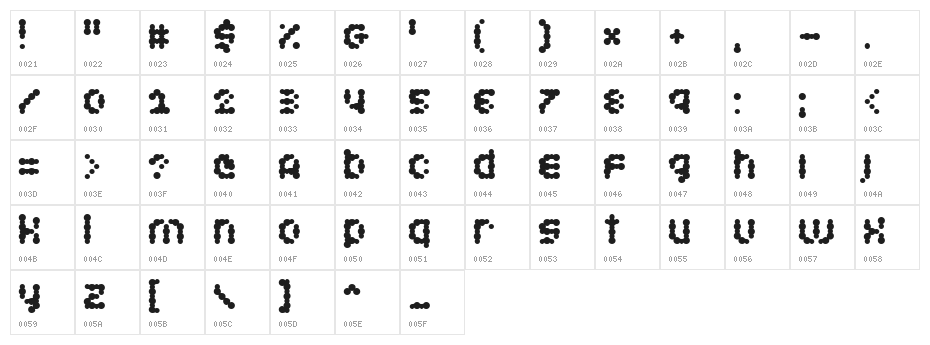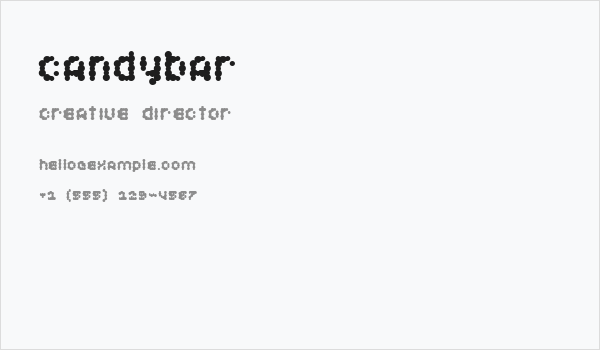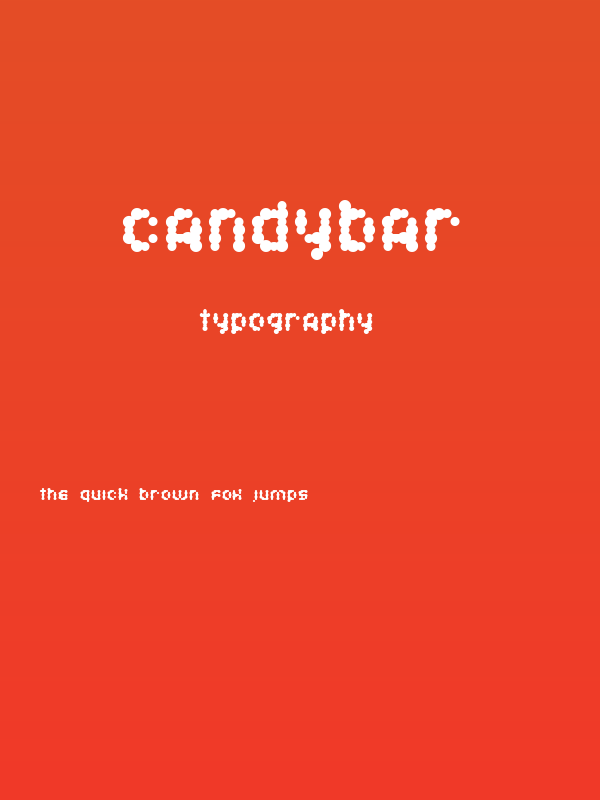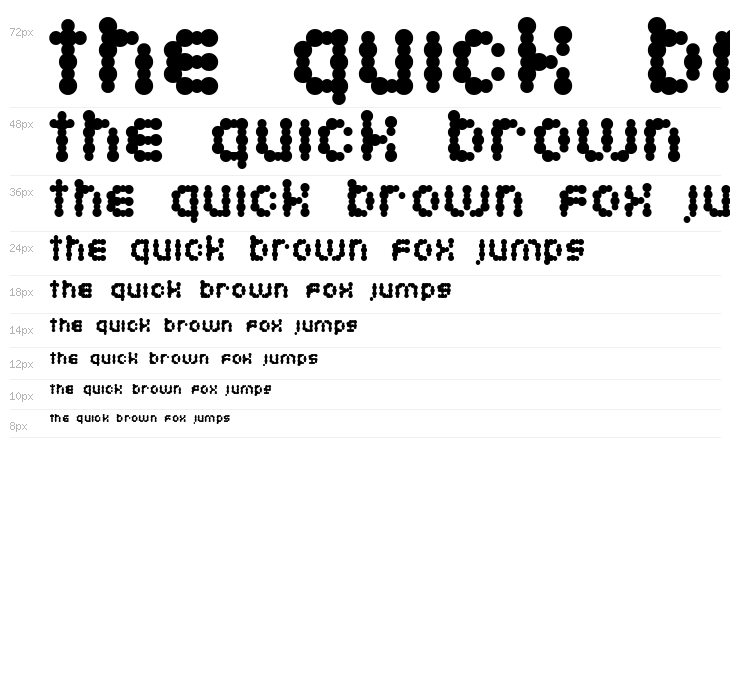
Candybar Font
Candybar Description
This playful and whimsical font features characters composed of small, rounded dots that create a bubbly and fun appearance. The design is consistent across both uppercase and lowercase letters, as well as numbers and special characters. The font's unique style is reminiscent of candy or bubbles, making it ideal for projects that require a lighthearted and cheerful touch. Its bold and rounded forms ensure readability while maintaining a distinct and eye-catching look. The uniformity in the dot size and spacing gives it a cohesive and polished feel, suitable for creative and informal designs.